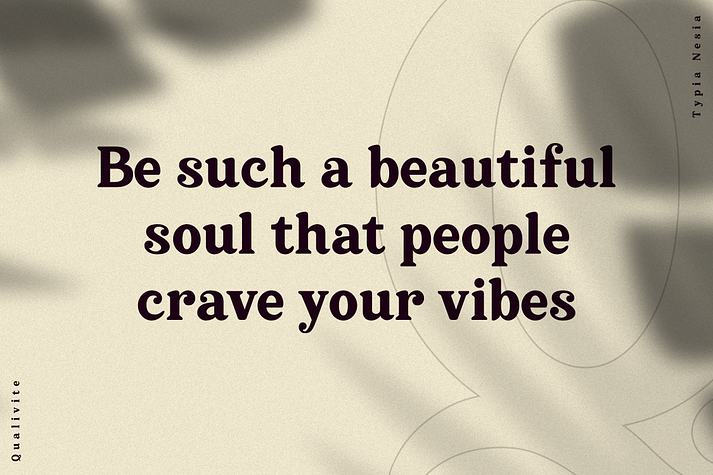
Qualivite
Qualivite is a retro and serif font family published by Typia Nesia.
Qualivite Bold Serif Font - Vintage and Classic Font.
Qualivite Serif font is perfect for your up coming projects. Such as logo branding, editorial design, stationery design, blog design, modern advertising design, card invitation, art quote, home decor, book/cover title, special events and any more.
Styles Retro, Serif